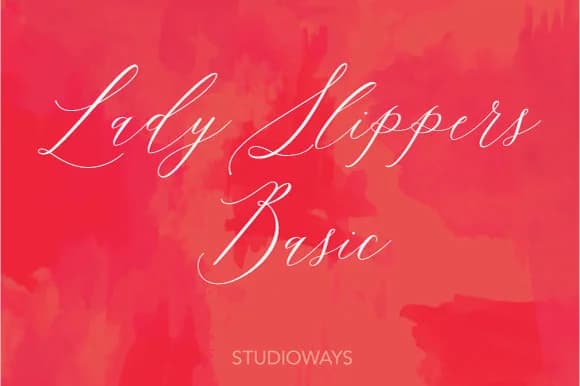
Lady Slippers by Studioways is a flowing, delicate script that brings handwritten elegance to digital design. This font balances refined letterforms with a natural, organic feel, making it ideal for creating personalized wedding invitation suites, custom Etsy product packaging labels, upscale greeting card designs, and hand-lettered branding projects. The typeface captures authentic artisanal character without sacrificing readability across different sizes and applications.
The romantic nature of Lady Slippers serves designers seeking to add a human touch to contemporary work. Whether you're developing stationery for boutique businesses, designing special occasion invitations, or crafting DIY lettering projects, this script provides the decorative impact that commands attention while remaining sophisticated and versatile. The font's balance of strength and grace makes it equally suited to minimalist layouts or elaborate decorative arrangements.
Beyond traditional applications, Lady Slippers shines in modern contexts where script fonts can feel dated but this one remains fresh. Its letterforms suggest careful penmanship while maintaining the clarity needed for everything from web headers to social media graphics. The versatility of this script means you're not locked into one aesthetic or design direction, giving you creative freedom across diverse projects. This makes it a genuine tool for professionals and hobbyists alike who appreciate quality craftsmanship in their typography.
Lady Slippers Font is a script font that shines as a display or heading face. Pair it with a clean sans-serif or serif font for body text β the contrast creates a clear hierarchy while the two styles stay balanced and easy to read.
Lady Slippers Font
by Studioways